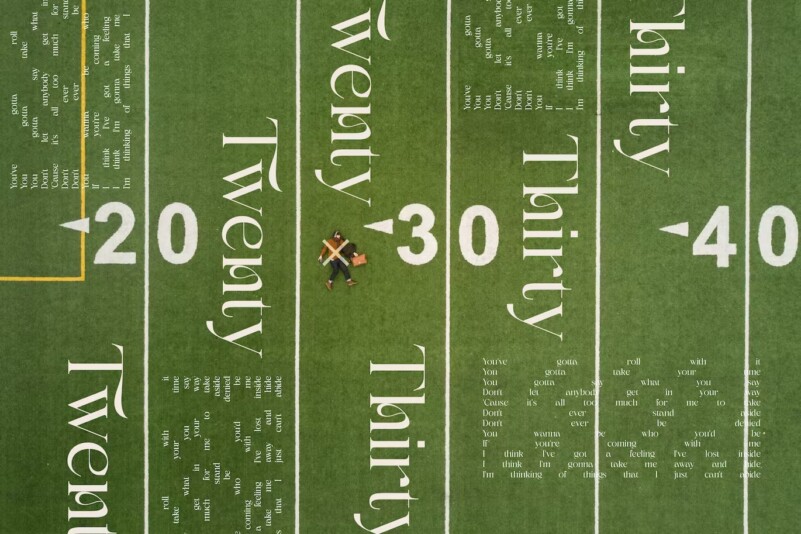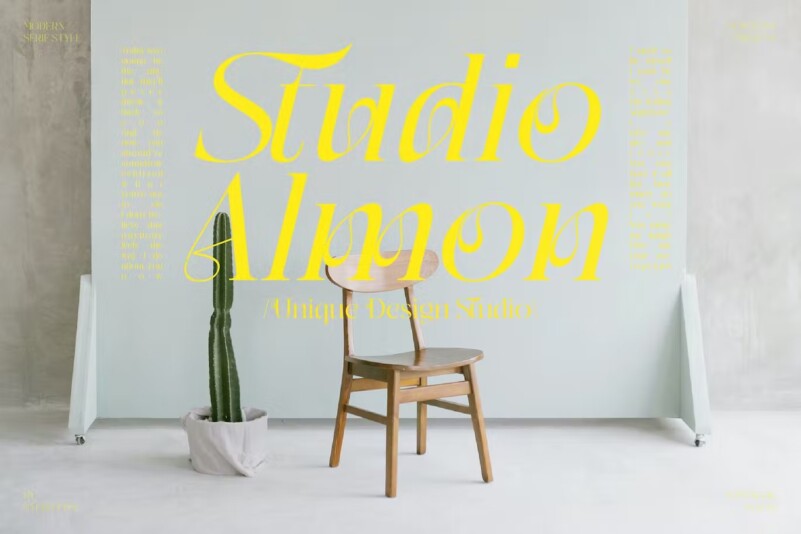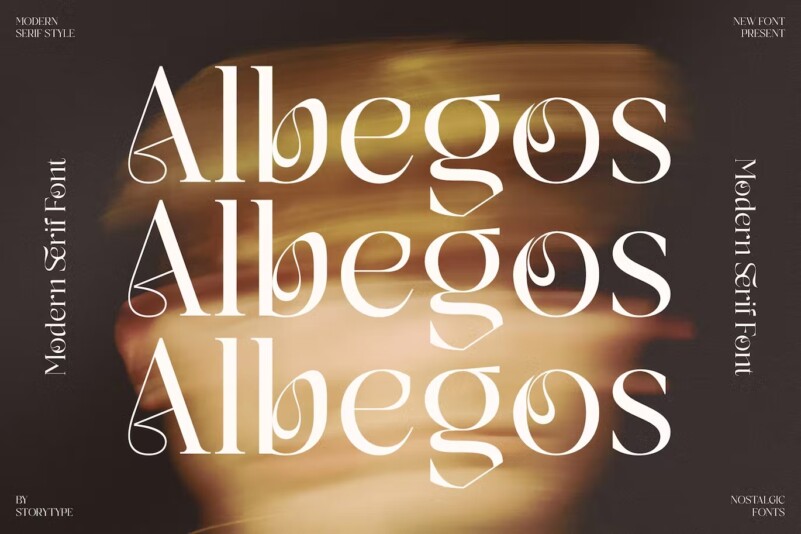
Albegos Modern Serif Font
Hello ladies and gentlemen, this is one of our suitable fonts to complement your creative digital and print products. This font is perfect for posters, social media posts, branding, personal projects, and more.